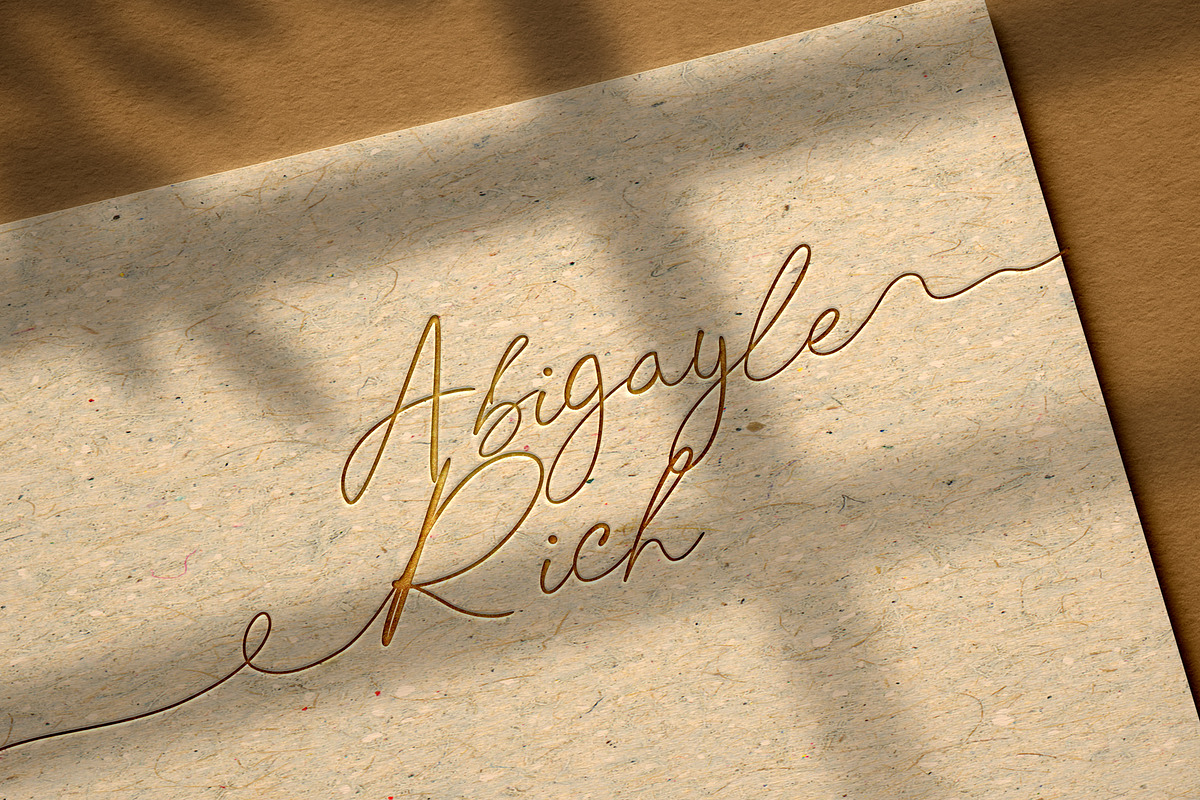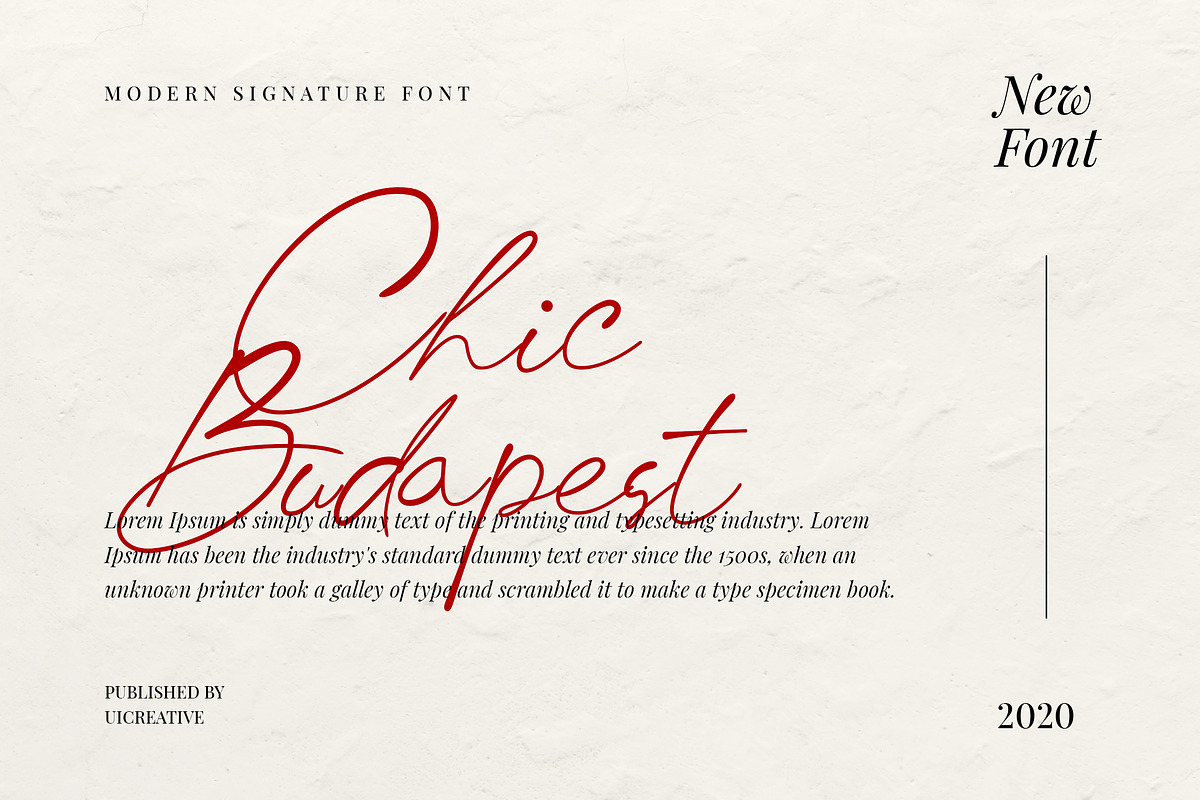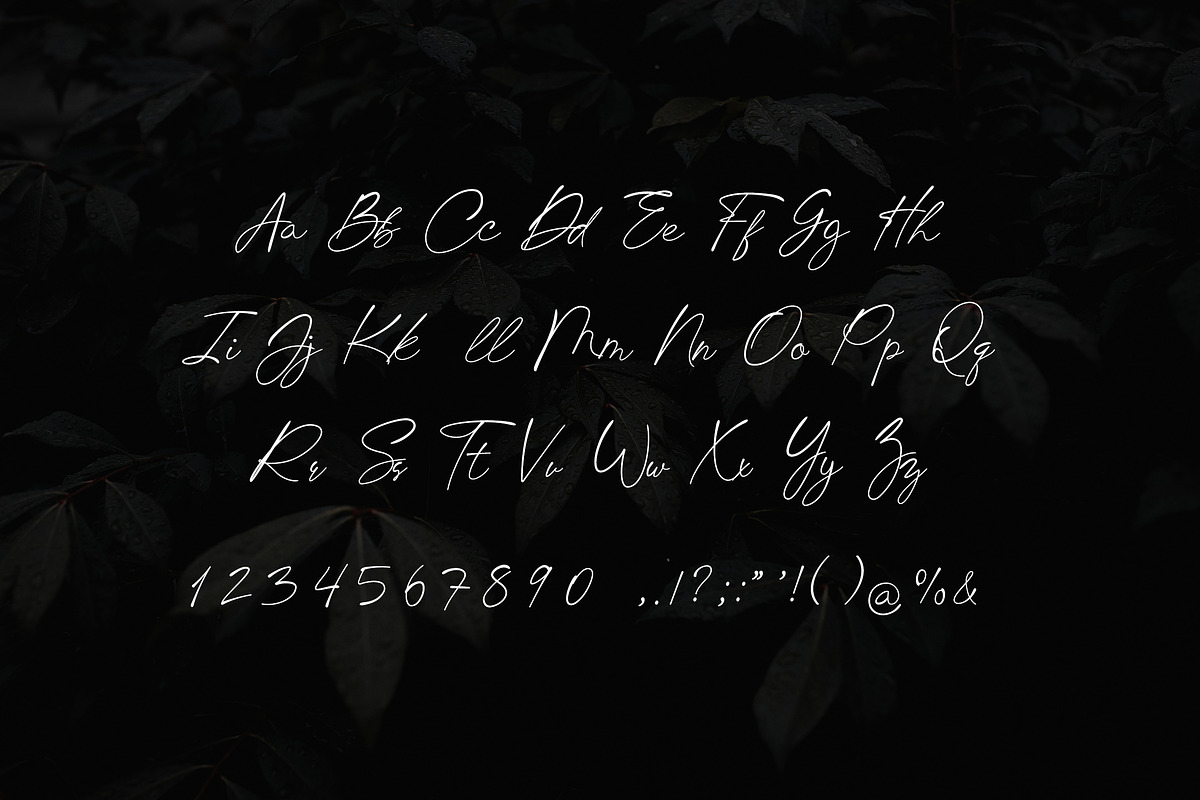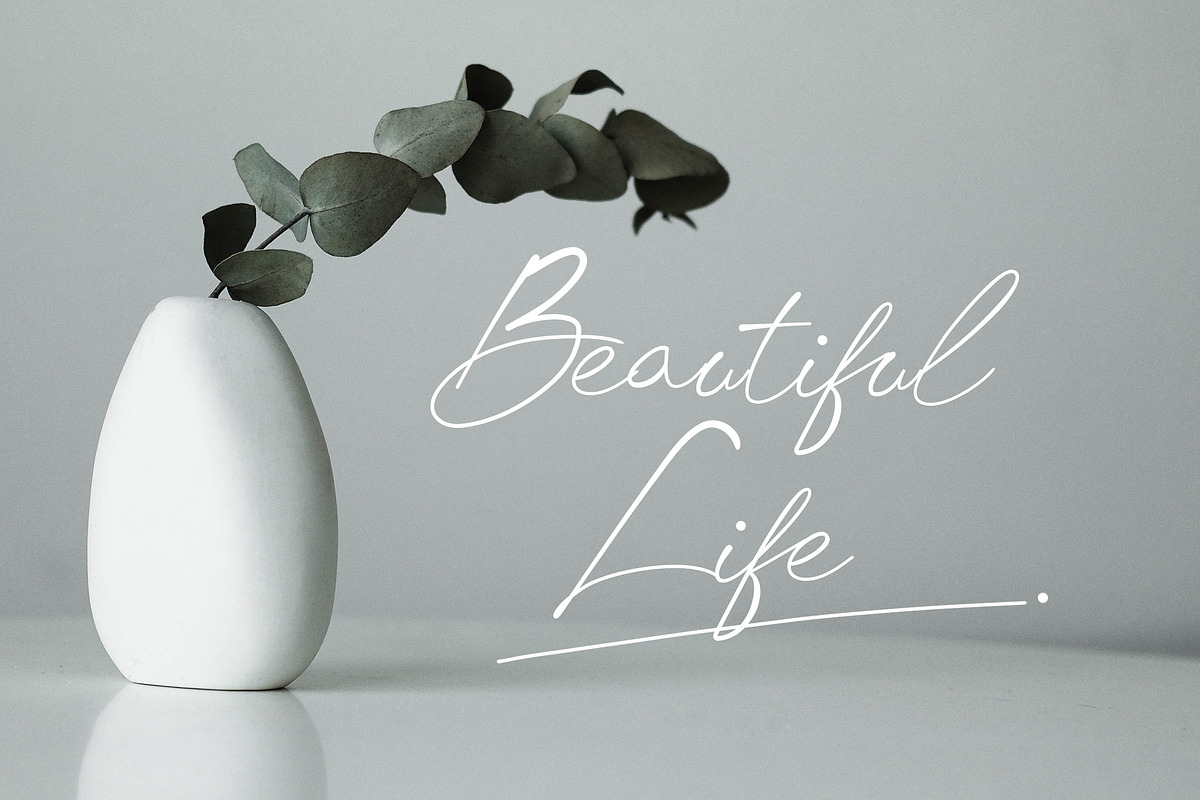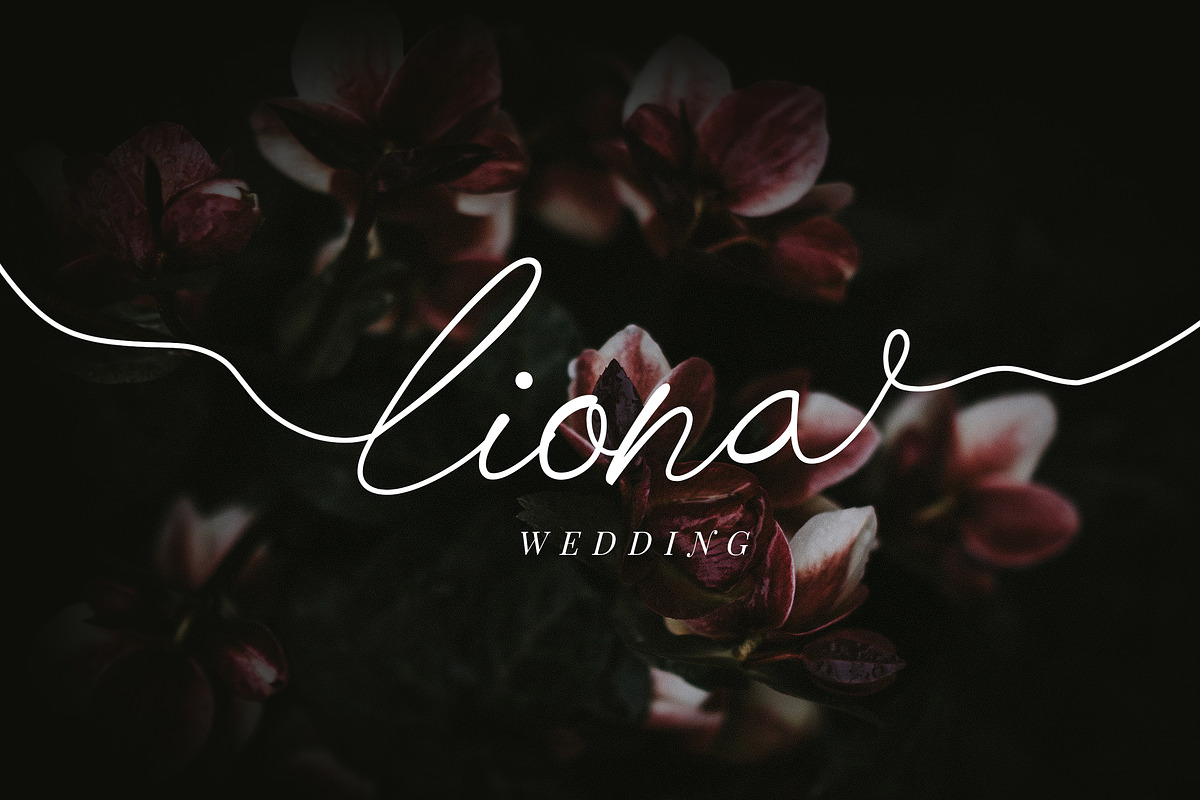
Chick Budapest Signature Font
Introducing of our new product the name is Chick Budapest Signature Font. Modern signature font that feels beautiful classy, elegant, and modern .This font is perfect suited for a wide variety of projects, as to signature, stationery, logo, wedding, typography quotes, magazine or book cover, website header, clothing, branding, packaging design and more. Also for fashion related branding or editorial design and displays both masculine and feminine qualities.